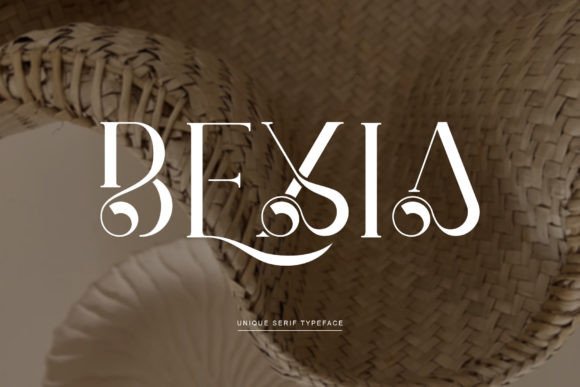
Introducing Bexia Font - The Epitome of Sophistication and Style for Your Creative Endeavors
Embark on a typographic journey with Bexia Font, a captivating serif typeface that exudes elegance and class. This modern yet nostalgic font is a versatile masterpiece that effortlessly enhances logos, magazines, social media posts, and a plethora of other design projects.
Step into a world of refined aesthetics with Bexia Font, a carefully crafted creation designed to elevate your designs with a touch of timeless sophistication. Its meticulously designed curves and sharp edges dance together in perfect harmony, captivating your audience with their undeniable charm.
Unleash your creativity with Bexia Font, a font family that speaks volumes with its understated beauty. Its refined lines and graceful serifs evoke a sense of nostalgia while embracing a contemporary edge. Bexia Font is the perfect companion for those seeking to make a lasting impression with their designs.
Discover the versatility of Bexia Font, a font that seamlessly adapts to a wide range of design styles and applications. From sleek logos that command attention to captivating magazine layouts that leave a lasting impression, Bexia Font is your go-to choice for creating designs that resonate with your audience.
Immerse yourself in the world of Bexia Font, a font meticulously crafted with OpenType features that provide endless possibilities for creative expression. Experiment with ligatures, numbers, and punctuation to add a touch of intrigue and visual interest to your designs. Bexia Font also supports various languages, allowing you to connect with a global audience.